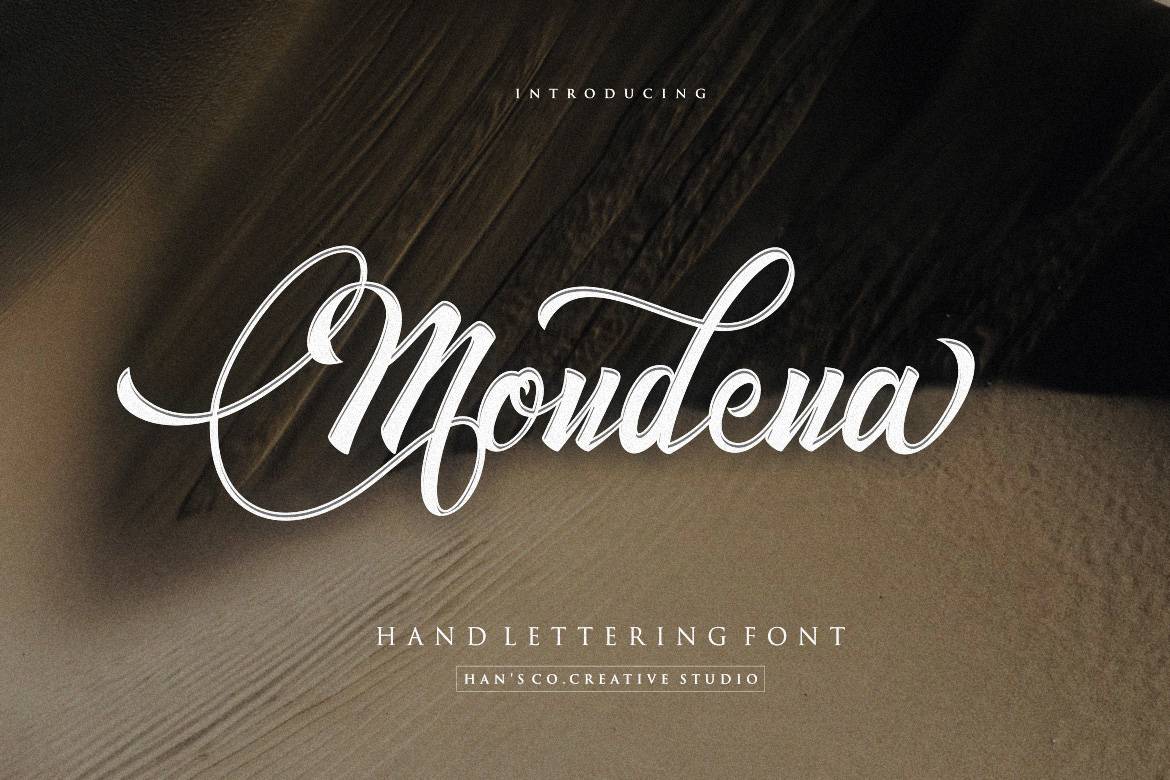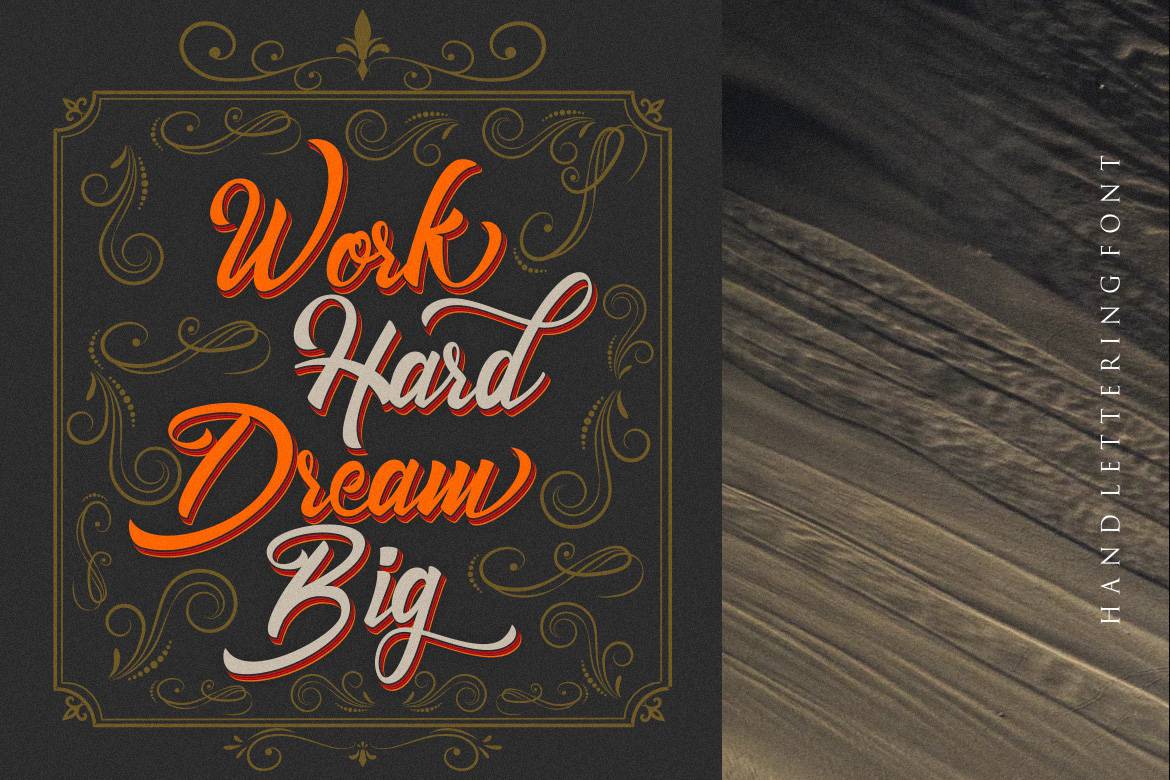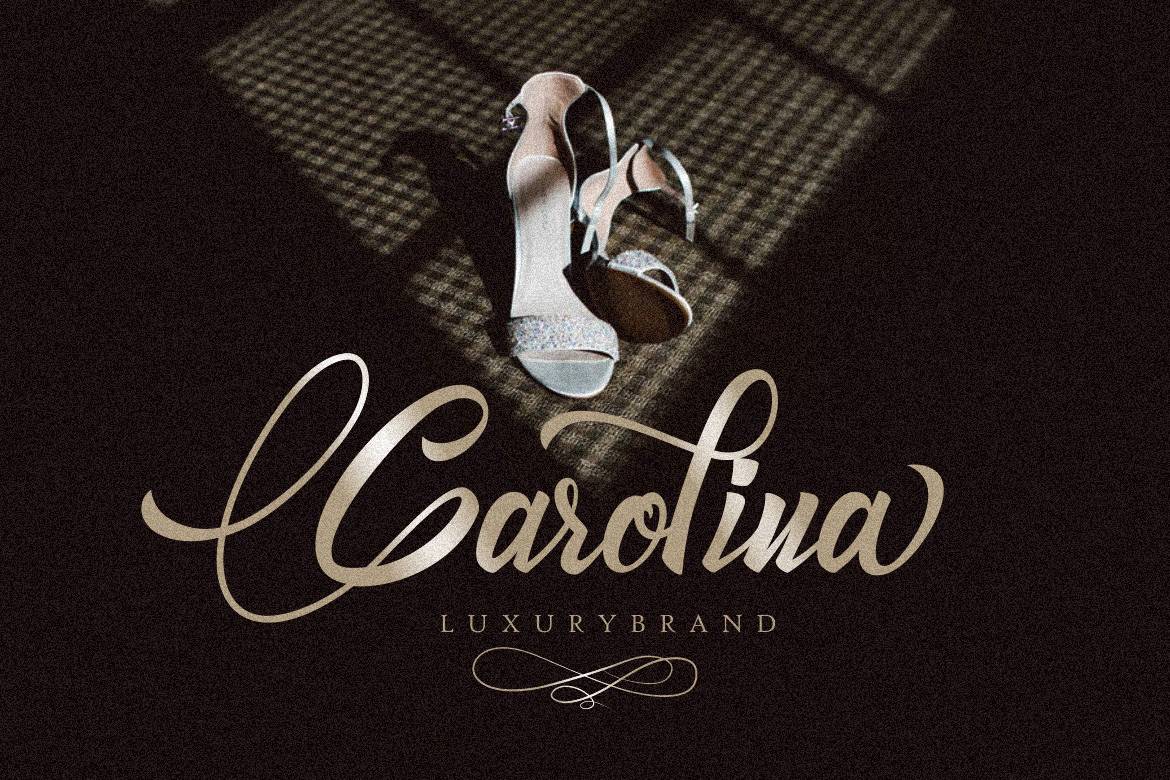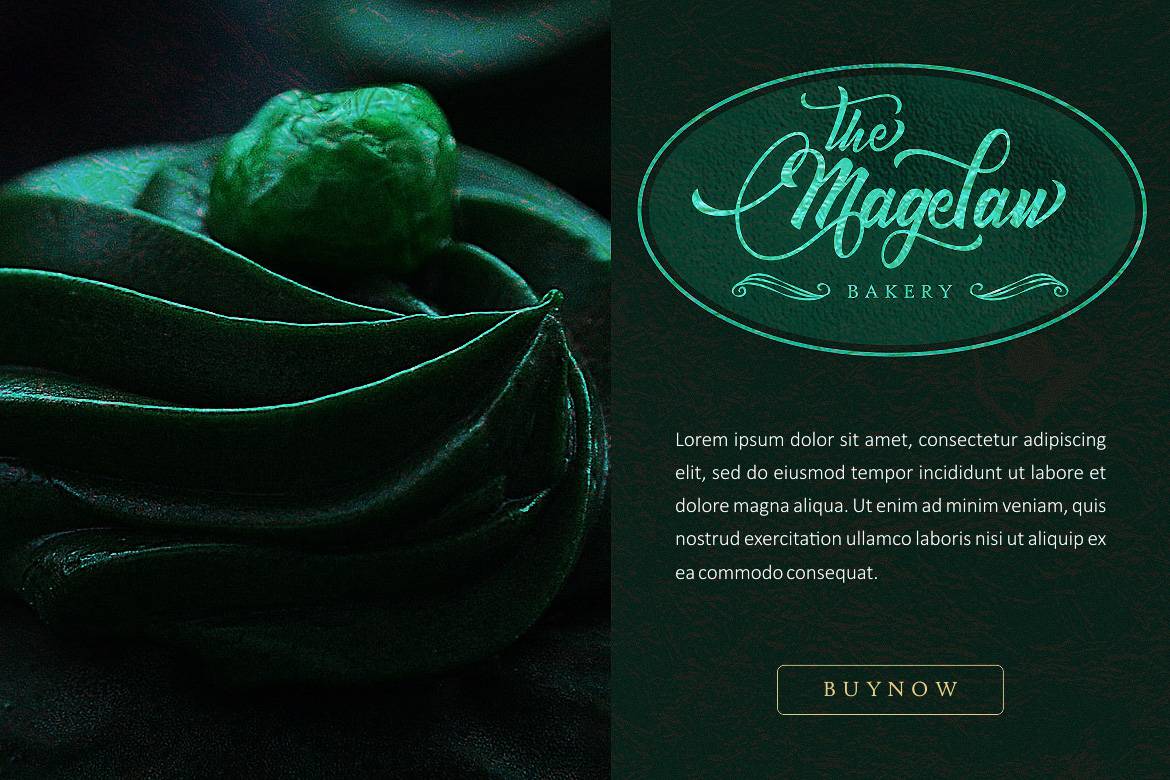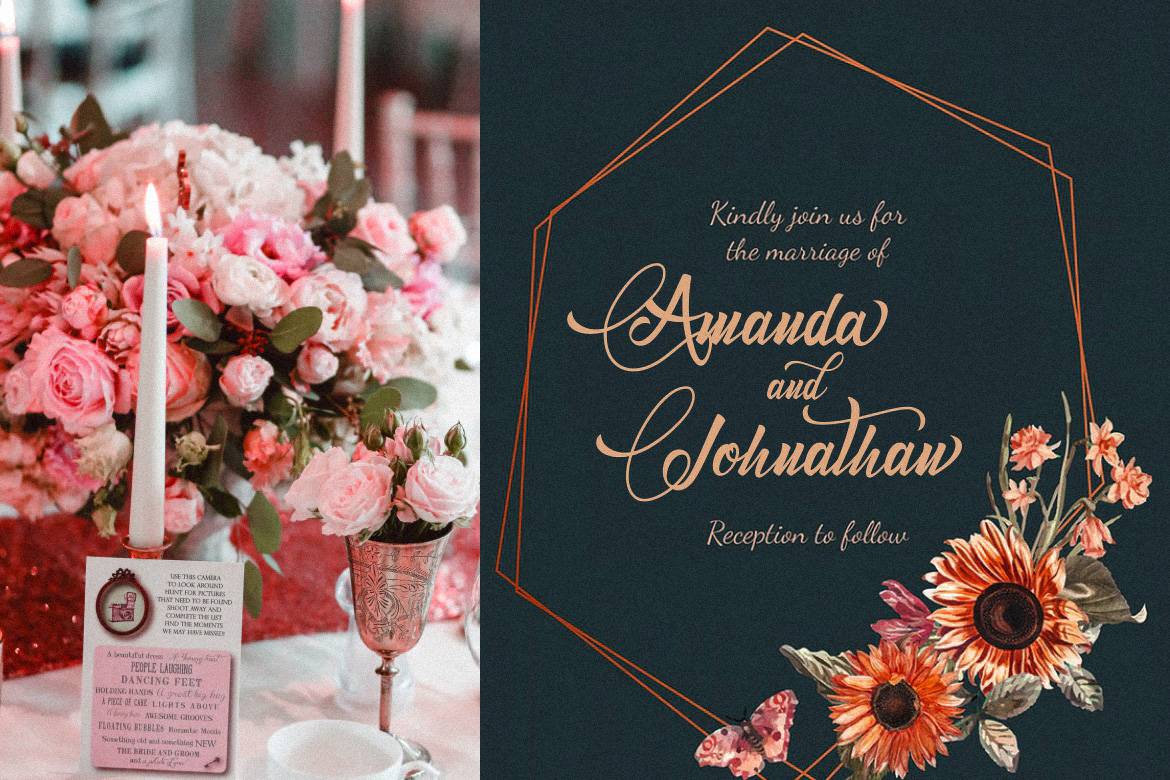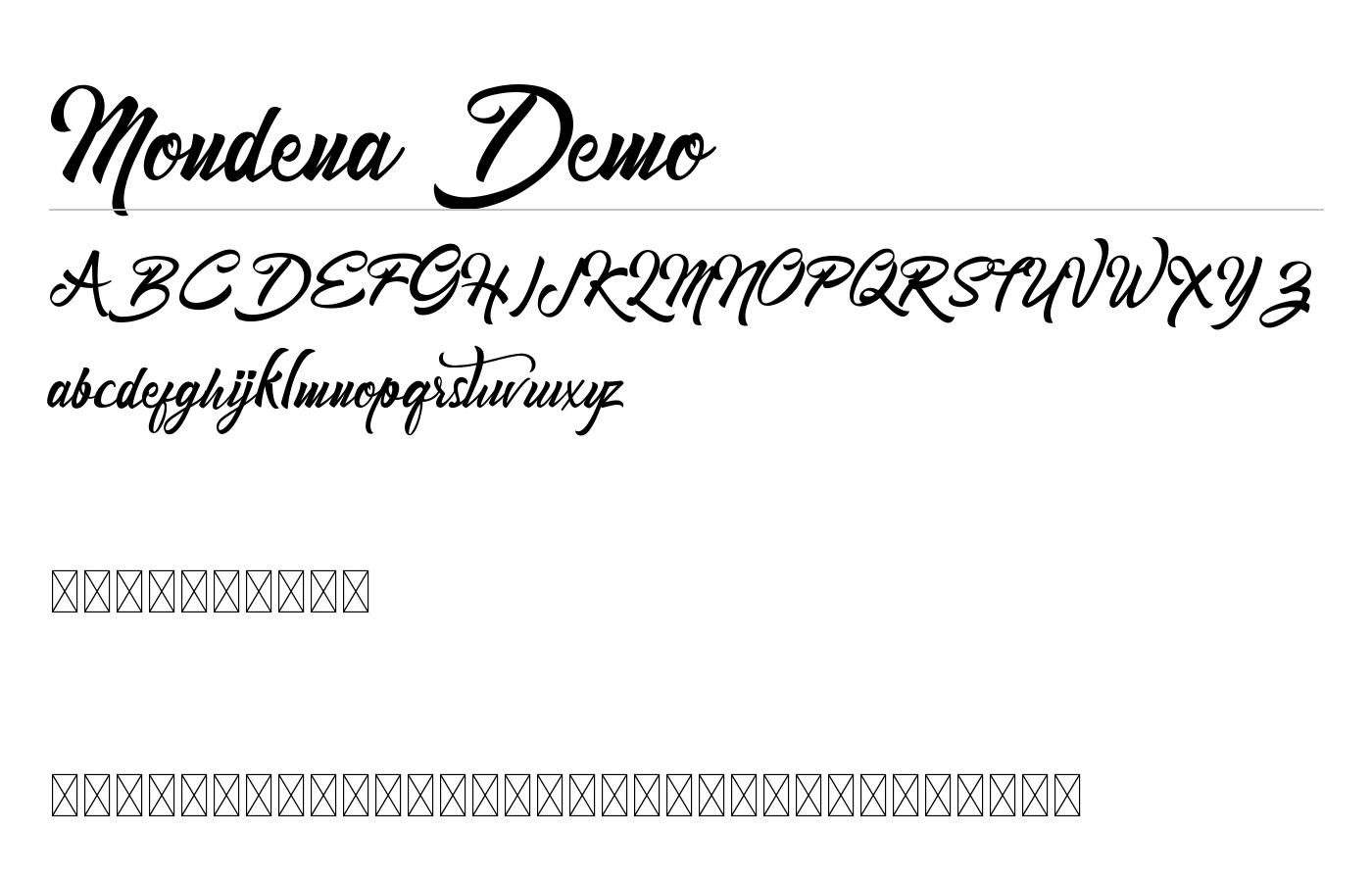
Mondena is a graceful script font with a bold yet elegant style, featuring smooth, flowing curves and distinct calligraphic strokes. Its moderate contrast and lively letterforms make it perfect for creating eye-catching headlines, logos, and branding that require a touch of sophistication and personality. This font works especially well in fashion, invitations, and creative projects where a warm, stylish feel is desired.
| Font family | Mondena Font |
| Designer | Burhan Afif |